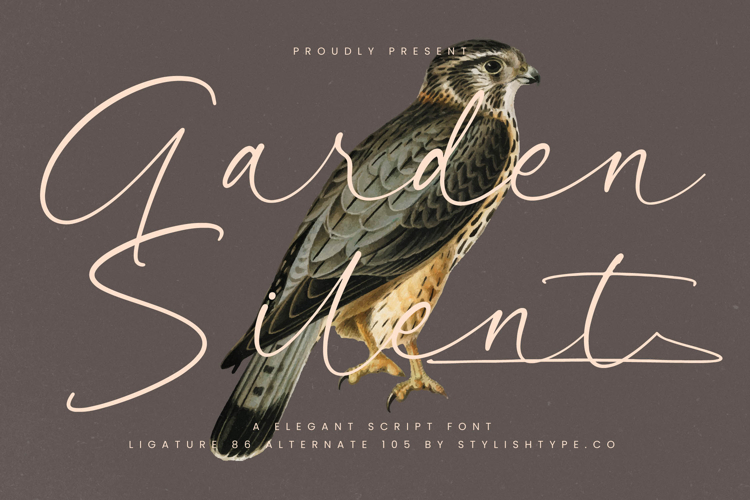
Garden Silent - Elegant Script Font
This font is crafted for creators and brands who value luxury, style, and authenticity in their visual identity. The flowing curves and soft lines evoke a sense of romance and intimacy, while the professional finish ensures it adapts seamlessly to both digital and print media. Whether you’re working on branding, editorial design, packaging, or wedding invitations, Garden Silents delivers a timeless handwritten look with a polished edge.
Beyond aesthetics, Garden Silents carries the emotional weight of storytelling. It communicates elegance, passion, and exclusivity through every curve, turning ordinary text into something that resonates deeply with viewers. From luxury product labels to editorial spreads, from event posters to social media graphics, this script font adapts with elegance and always leaves a lasting impression.
If you are searching for a script font that blends beauty, functionality, and expressiveness, Garden Silents is the perfect choice. It is not just a decorative typeface, but a design investment that elevates your creative projects with a touch of timeless artistry.